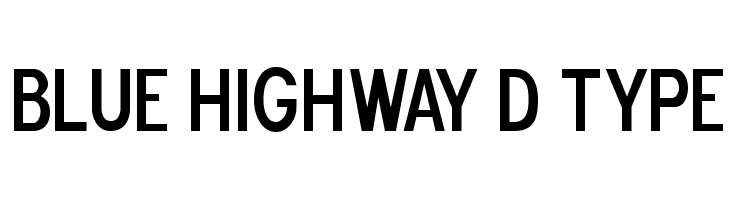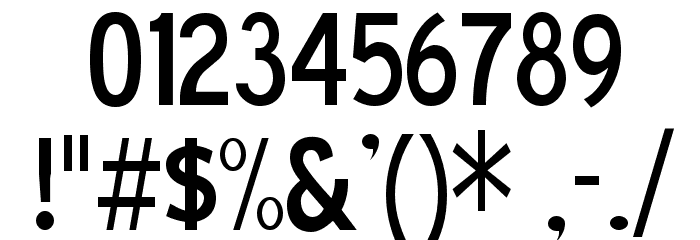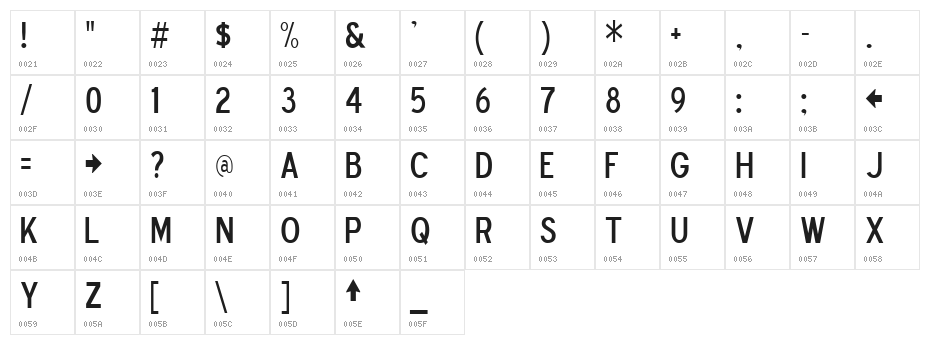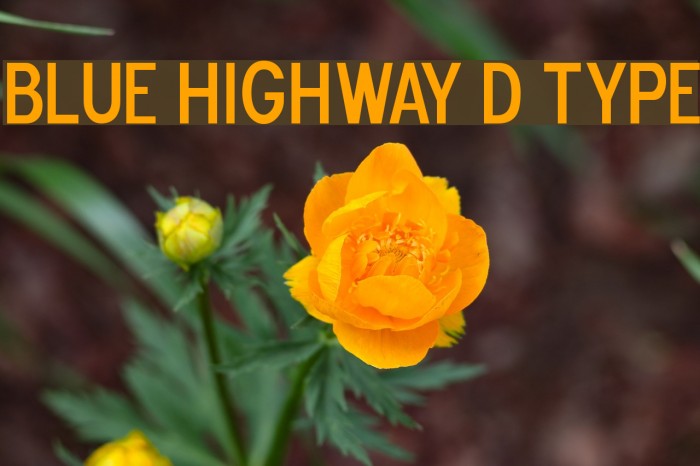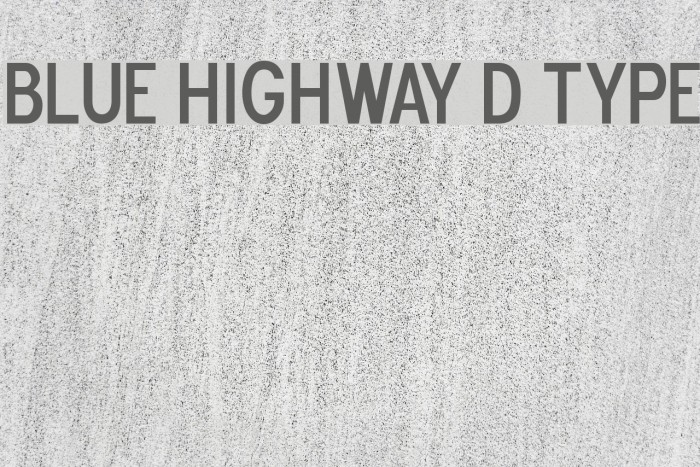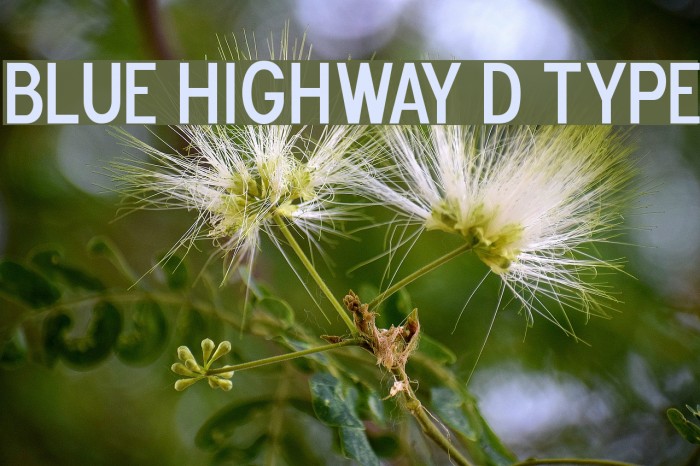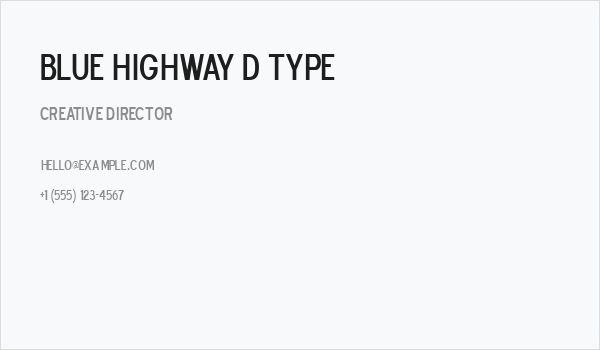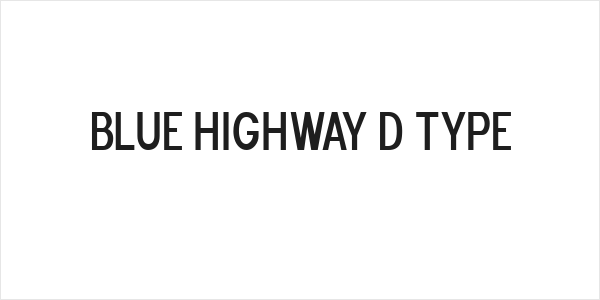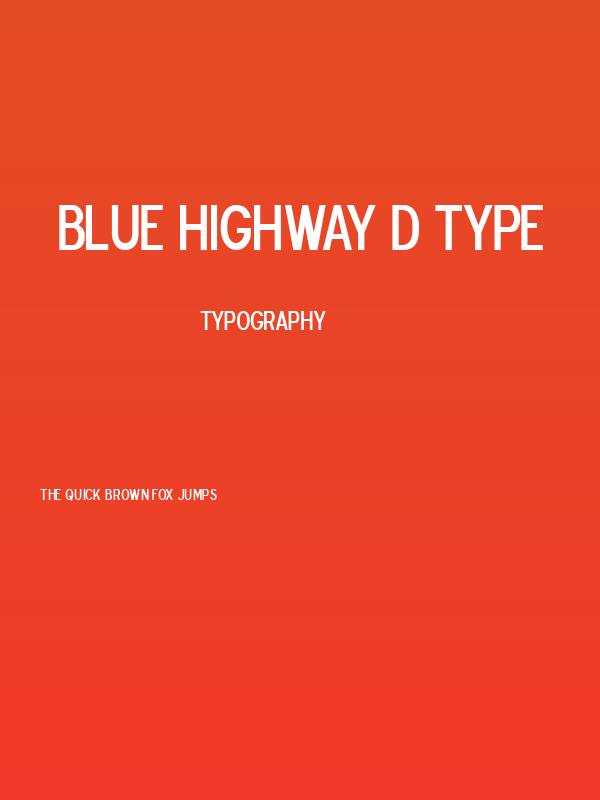
Blue Highway D Type Font
Blue Highway D Type Description
This font features a clean, modern sans-serif style with uniform stroke widths, providing a straightforward and highly legible appearance. The characters are bold and well-defined, making them suitable for a variety of applications. The uppercase and lowercase letters maintain a consistent design, with rounded edges that soften the overall look. Numbers and special characters are clear and distinct, ensuring readability in any context. The font's simplicity and clarity make it versatile for both digital and print media, offering a professional and contemporary aesthetic.
| Use Case | Headlines, Logos, Signage |
| Proposed Projects | Ideal for signage, branding, digital interfaces, and editorial design due to its clarity and modern appeal. |